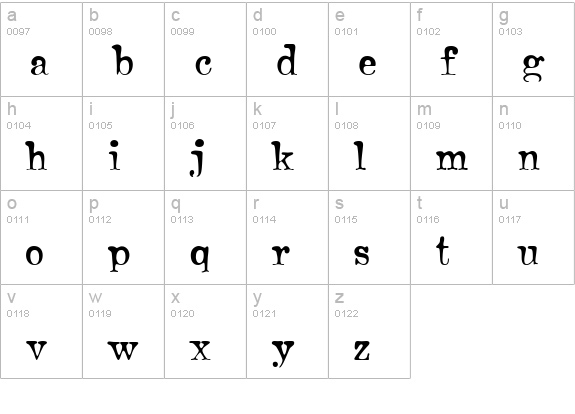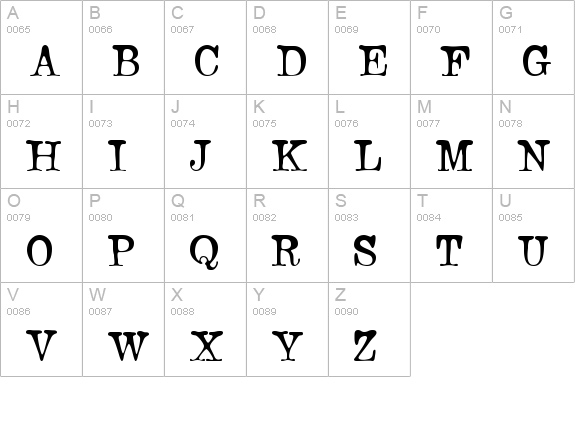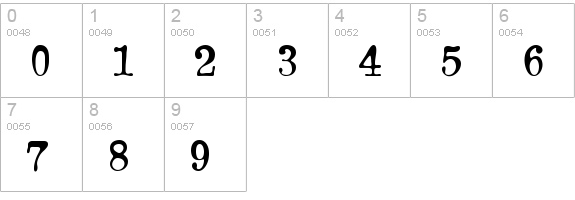
Bonsai Font Details
Bonsai font exudes a delicate elegance and timeless charm, embodying the art of bonsai itself in its intricate design. Each character is meticulously crafted with precision and finesse, capturing the essence of a miniature tree carefully cultivated and shaped over time. The flowing curves and fine details of Bonsai font bring a sense of tranquility and harmony to any design project. Best of all, Bonsai font is available for free download at FontsMarket.com. Embrace the beauty of this unique typeface and bring a touch of nature-inspired sophistication to your creations. Elevate your designs with the grace and poise of Bonsai font, where creativity and serenity intertwine seamlessly.